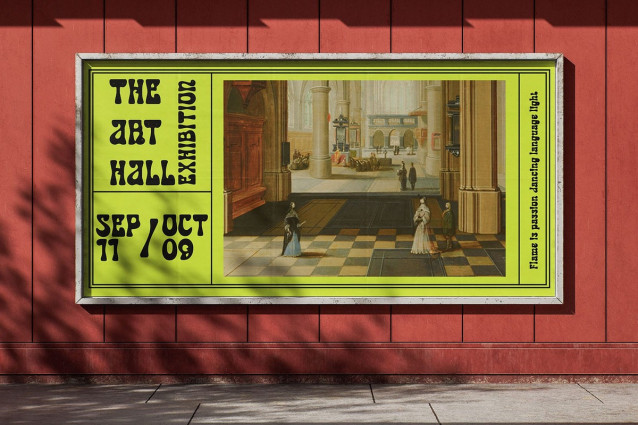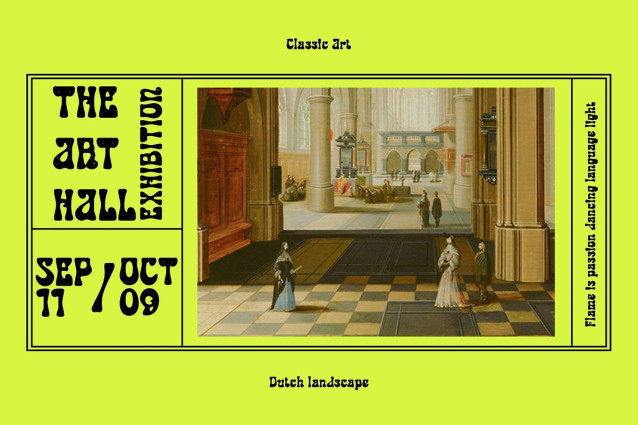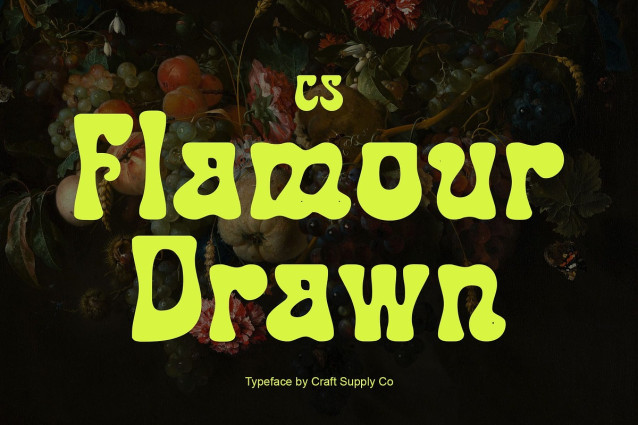
CS Flamour Drawn Font
CS Flamour Drawn embraces a whimsical, hand-drawn aesthetic that immediately stands out. Its bold strokes and textured details give it the appearance of being stamped or hand-crafted, adding depth and authenticity to any design.
Psychedelic and Historical Feel Blending psychedelic energy with historical undertones, CS Flamour Drawn delivers a unique visual voice. Its strong texture and irregular shapes create a raw, artistic impression, perfect for designs that aim to capture both retro flair and cultural richness.
Bold for Display Use With its thickness and textured design, CS Flamour Drawn functions best as a display font. Ideal for headlines, titles, and striking statements, it ensures maximum impact in posters, branding, and artistic layouts.
Perfect for Vintage and Creative Projects CS Flamour Drawn shines in vintage-inspired work, music tickets, and creative branding. Whether paired with colorful palettes or muted tones, its bold and handcrafted style makes it a versatile choice for projects that need to balance nostalgia with expressive artistry.